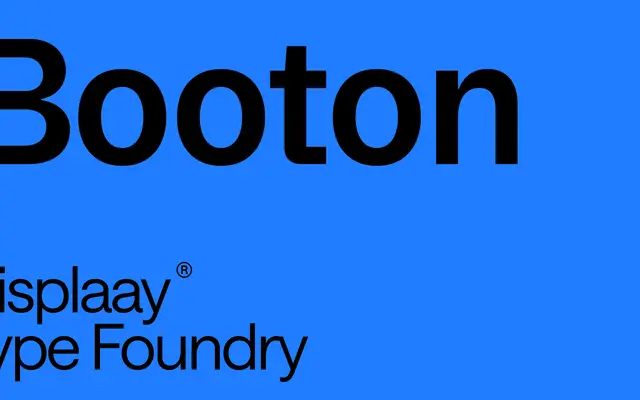
A uniwidth grotesque with Franklin Gothic lineage, built for screen interfaces with equal-width metrics across all 8 weights.
Booton is a duplexed grotesque in which every weight shares identical character widths, preventing layout reflow when weight changes at the interface level. The family spans 8 weights from Thin to Heavy with matching italics, totalling 16 styles, and is also available as a variable font with weight and slant axes. Displaay position it explicitly as a Franklin Gothic adapted for contemporary digital and UI contexts.
Described explicitly as a Franklin Gothic for the digital age, Booton is a grotesque sans designed with uniwidth duplexed metrics and a focus on screen and UI environments.